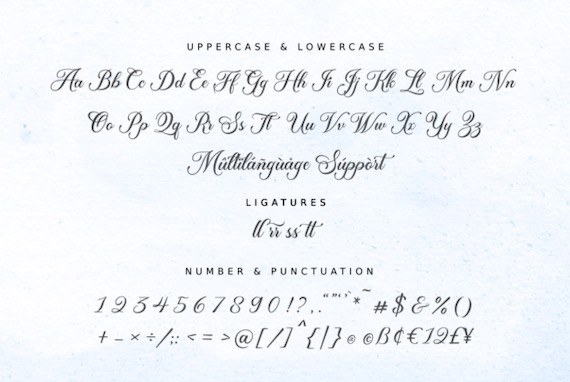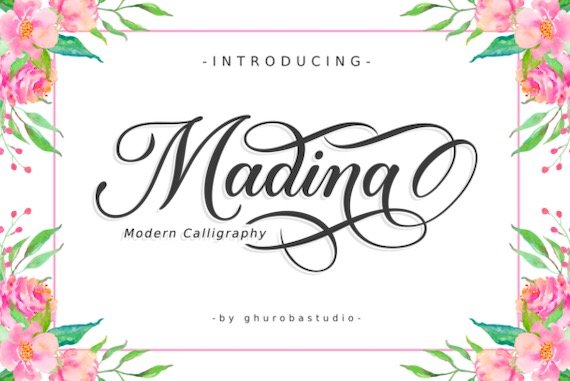
Madina Font looks incredibly elegant and modern in every design project. This handwritten script font has a natural and classy calligraphy style. Madina Font was created and shared by Ghuroba Studio, it’s also PUA encoded.
Madina Calligraphy Handwritten Font
Designer Name: Ghuroba Studio